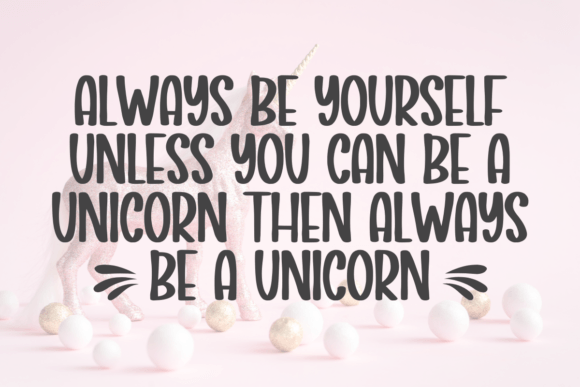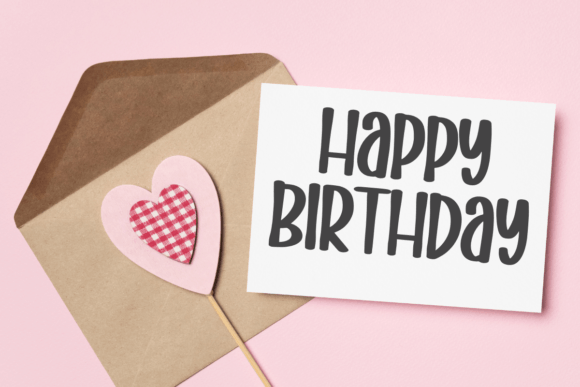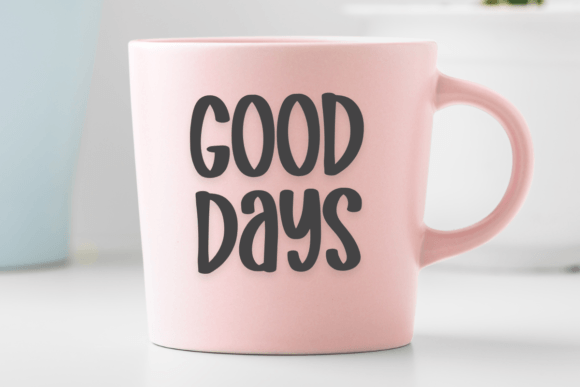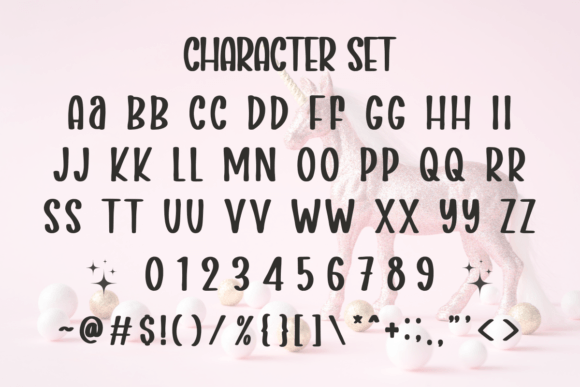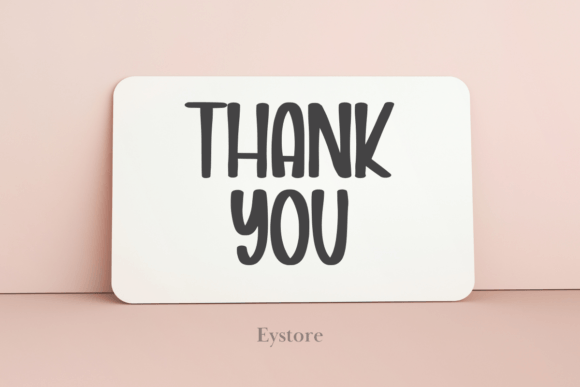
Unicorns Farmhouse Font
Unicorn Farmhouse is a fun display font, unique but very charming. It embodies playfulness and authenticity and is the perfect choice for any kids’ activity or project.